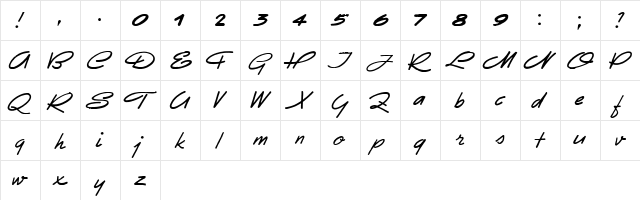
Eletroz Regular
Design Context for Eletroz Typeface
Eletroz is a composed and adaptable typeface that performs quietly and consistently across a wide range of design contexts.